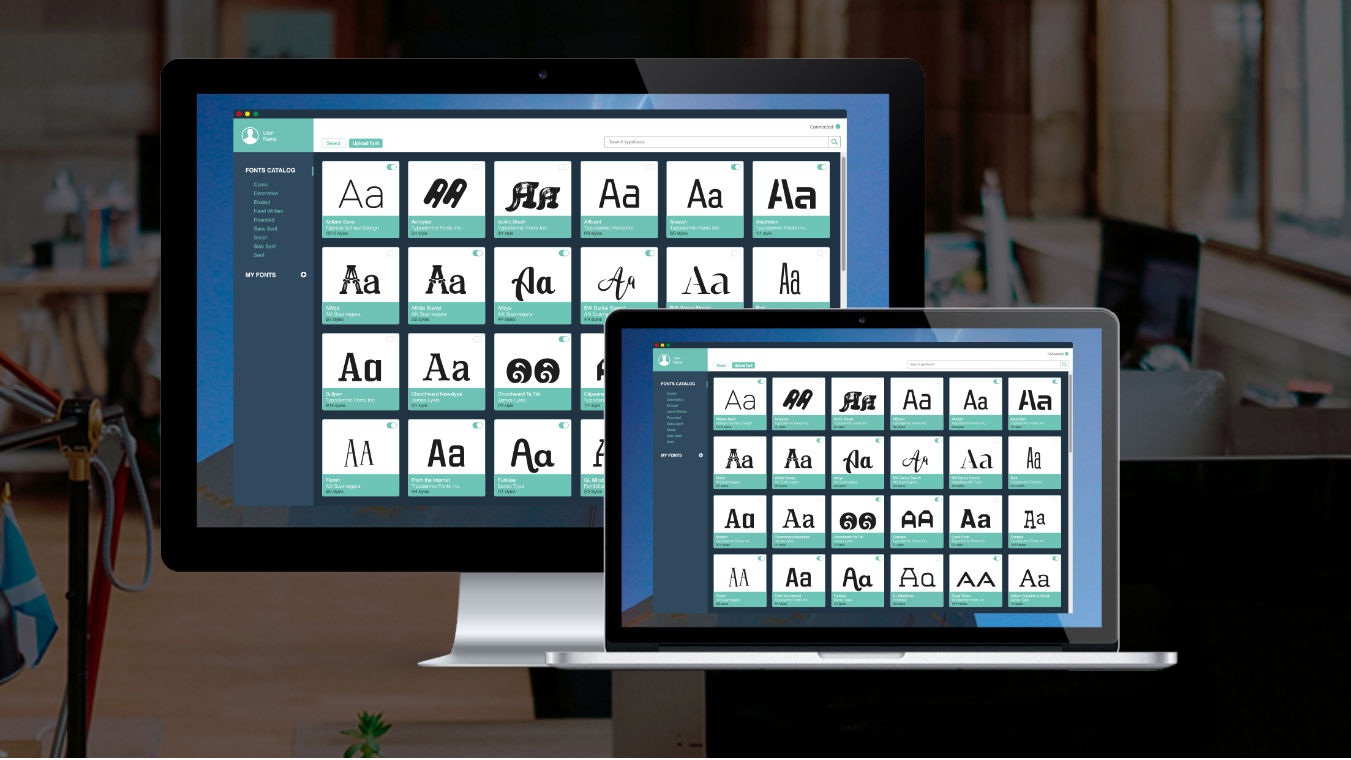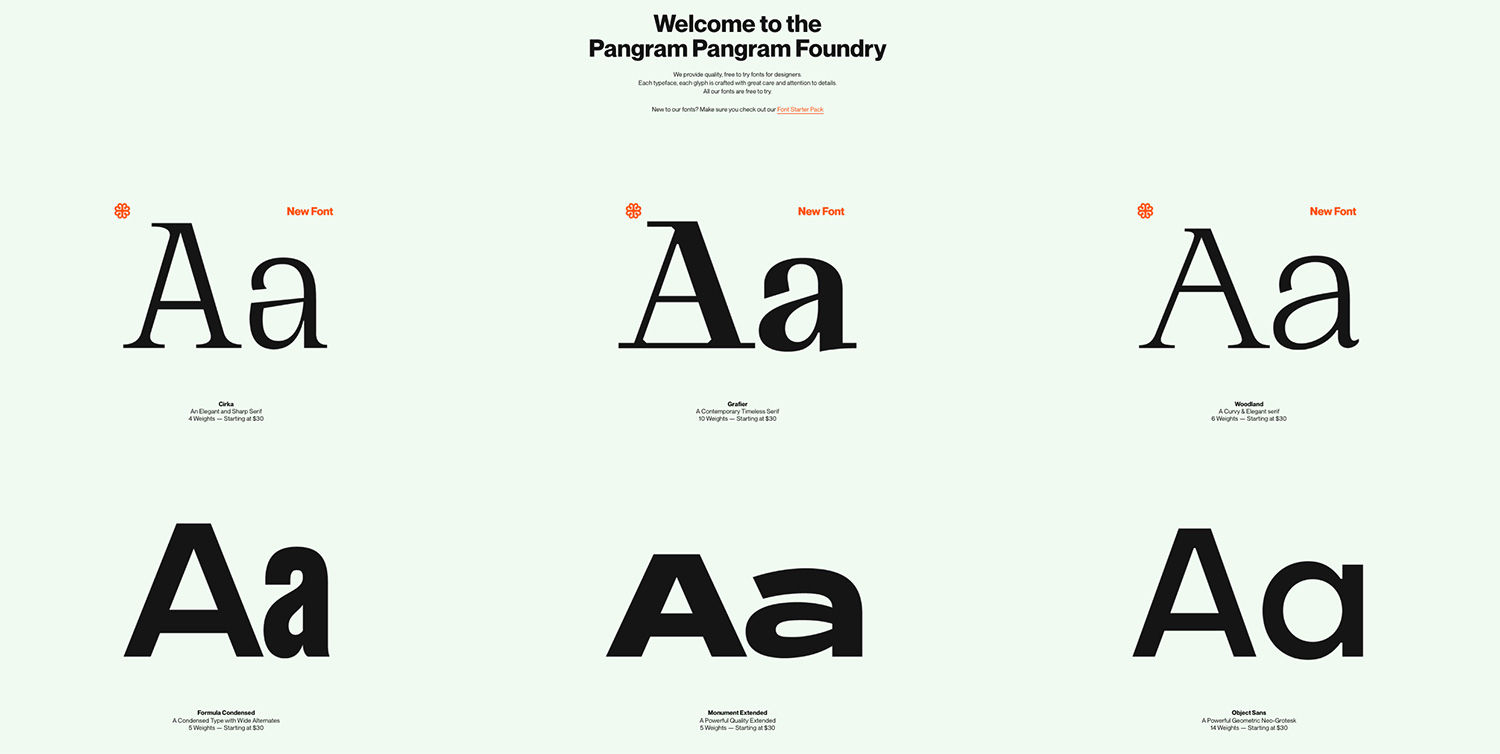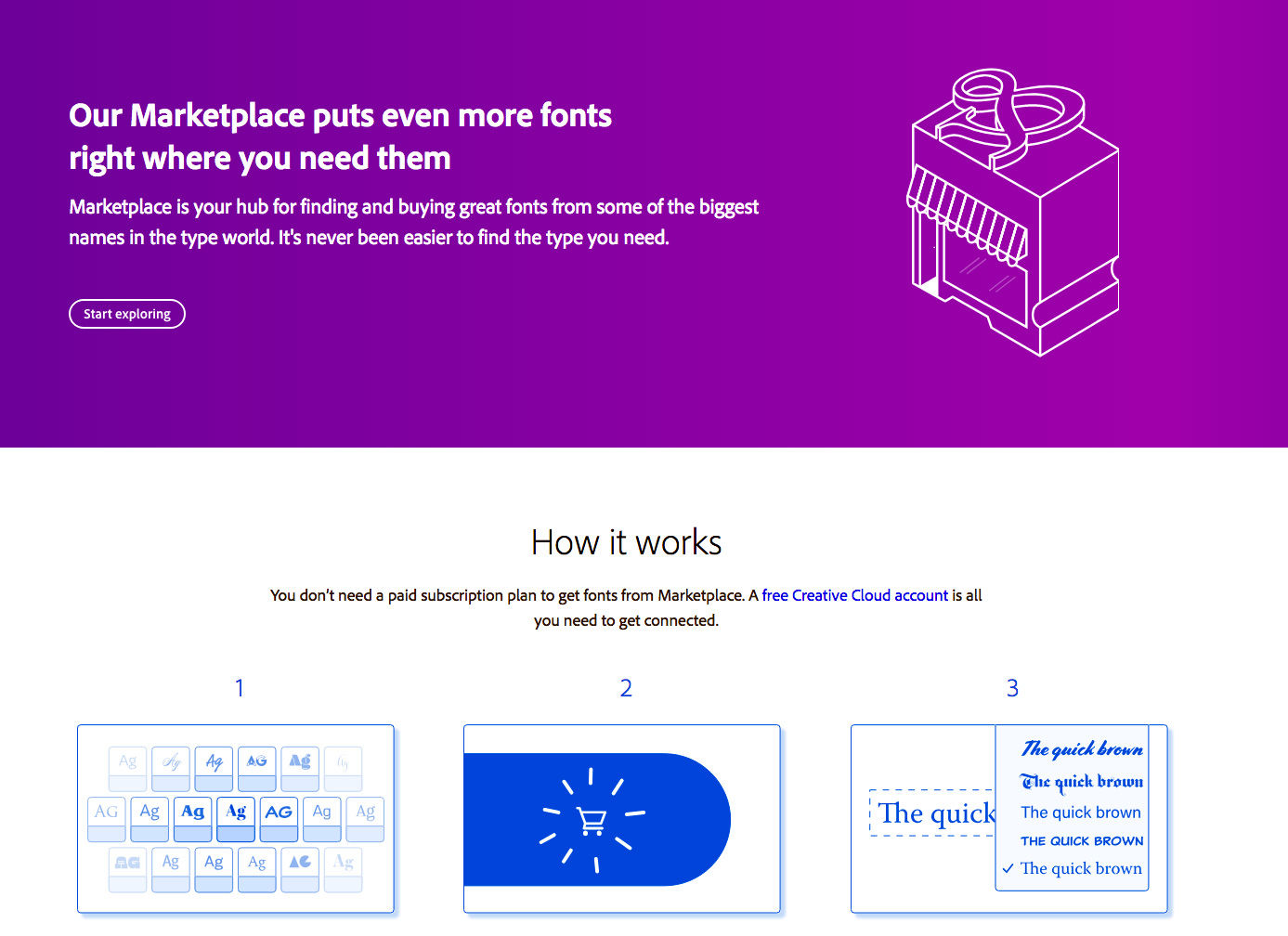
The 17 best font websites
As a graphic designer, typographer, or anyone that values typography, it’s important to have a wide range of quality typeface designs at your fingertips during the creative process.
Typefaces have long been important in shaping the aesthetic and tone of a project, and recent trends have been leaning toward hand and brush lettering.
Although there are plenty of free typefaces available (we’ve created our own round up of the best), sometimes it’s important to pay for the perfect one. The internet is crawling with type libraries, and it can be hard to decipher which ones host the best foundries, along with an easy-to-use use interface so you can pick out what you need with ease – whether that be sans serif, serif, hand lettering or brush lettering. For those who find it important to support the independent foundries with their own online stores, there are loads of them too. We’ve made sure to include the best of all three situations: paid, free and independent.
Luckily for you, we’ve done the hard work and picked out the best free and paid typeface hubs for finding, buying or downloading brilliant typefaces, including designs by Monotype, Adobe and Google.
Of course, there are a whole bunch of independently own type foundries too. See Typewolf’s own list to get an idea of individuals, or individual studios who have founded their own foundry and subsequent online library of typefaces. We’ve picked out some of these too.
Paid & Subscription-based Font Libraries
Formerly known as Adobe Typekit, Adobe Fonts is a streamlined service that gives you a complete library of over 14,000 fonts, with a Basic collection of around 6000 fonts free for those with an Adobe ID.
Adobe updated their font service last year during Adobe Max to remove sync limits, meaning users can activate all the fonts they need at any one time. There are also no web font page view and domain limits – also no web fonts full stop, actually, as the entire library was updated to be available for use on both online and desktop.
Where Adobe Fonts is a subscription library of fonts, Adobe Fonts Marketplace has prices set by the respective foundries. You can use Fonts Marketplace with a free sign up to a Creative Cloud account, so the only time you need to spend money is when you want to buy a typeface.
Linotype, acquired by Monotype in 2006 (with some controversy) is the home of classic typefaces such as Helvetica, Frutiger and Universe families. With its number one bestseller typeface as Neusa Next, and a whole range of different foundries, you’ll be sure to find the right one for you. It used to be the biggest independent type foundry before it was acquired, so you’ll be picking type from some of the best designers. However, you’ll have to be serious about these typefaces, they don’t come cheap, with prices ranging from anything to £50 or £200.
Monotype owns loads of different type libraries, but FontFont is labelled as its “contemporary typeface” collection, that is “experimental, unorthodox and radical”. Set up by type luminaries Erik Spiekermann and Neville Brody, the foundry is aimed at giving designers a fair offer on all kinds of typefaces. It’s based in Germany, but ever since 2014 it’s been part of the Monotype family.
There are 2956 fonts within 407 typeface families at FontFont, so you’re spot for choice. FontFont’s buying process is now integrated with FontShop’s shopping cart, so to purchase on FontFont you’ll be led to the product on Fontshop.
FontShop is where you can buy and download fonts for desktop, web and apps. It was started by Erik Spiekermann and Joan Spiekermann and Neville Brody in 1989, and it was the first font reseller in digital type history.
Looking at FontShop now, as well as a bunch of new fonts and font deals, it offers a whole bunch of brand new tools for digital font management, such as FontShop Plugin CC to work with Adobe Creative Cloud, and FontBook iOS App.
FontShop offers free styles from its range of foundries.
Yes, another digital font distributor acquired by Monotype, MyFonts is mixture of fonts that will cost you and others that are free. Often within one font family, you’ll have the choice between free fonts and those that cost, but prices on MyFonts are generally a lot lower than the likes of Linotype.
Most of these we’ve included in our free fonts feature, but it’s definitely worth checking them all out at Wild Type. They also have a range of priced fonts too.
Not the best place to find high quality typefaces, but nonetheless free. We can’t have a list of free typeface libraries without it though. With headlines like ‘Techno’ and ‘Foreign Look’, it’s a bit hit and miss, but it’s got those basic Sans Serif typefaces you can’t go wrong with.